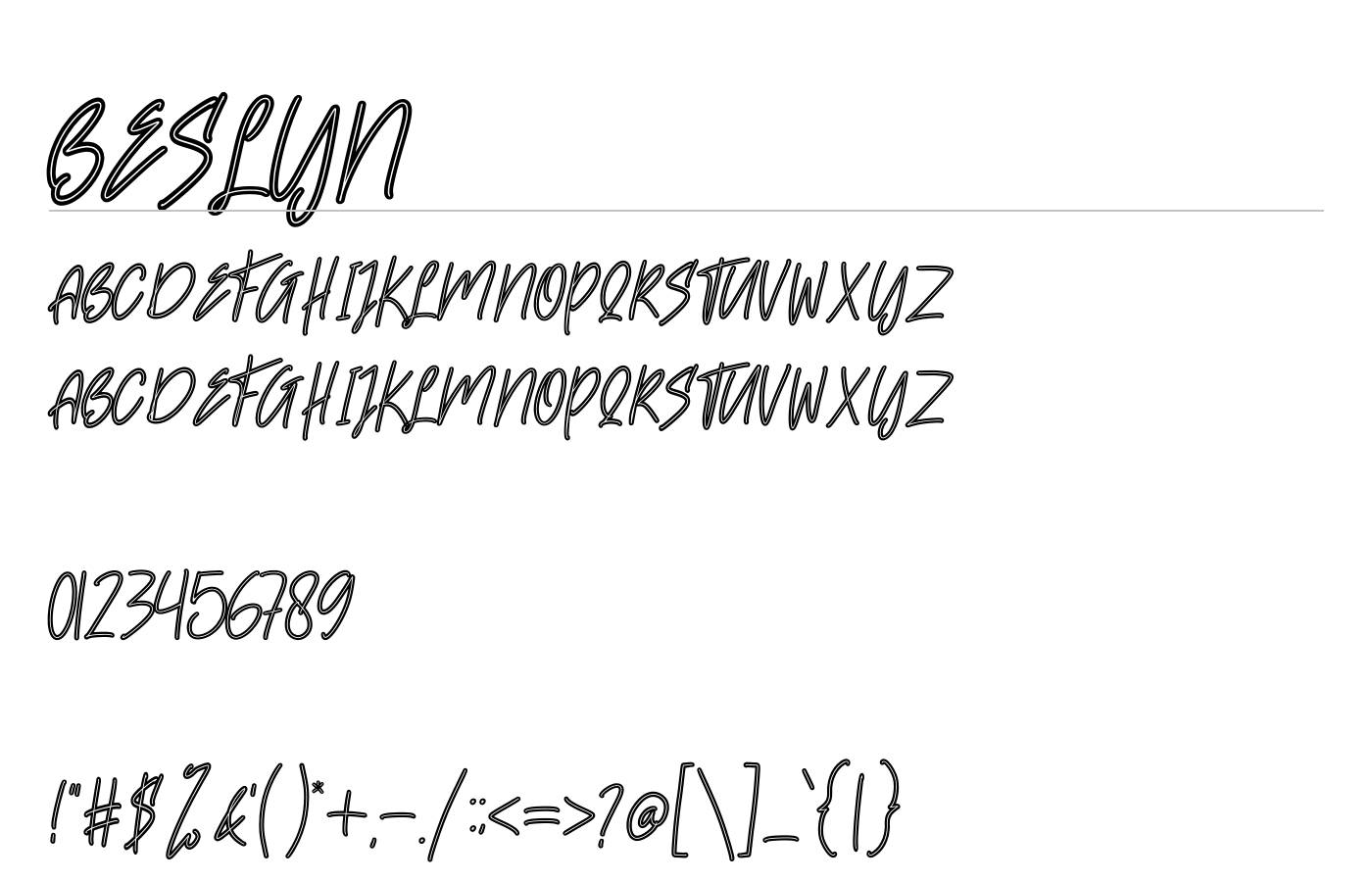
Beslyn is a playful, casual script font characterized by its narrow, hand-drawn style and energetic, slightly irregular stroke outlines that give it a dynamic and friendly feel. Its tall, condensed letterforms and lively curves make it perfect for creative branding, informal headlines, and designs aiming for a personal, approachable touch. This font works well in contexts where a fun, youthful vibe is desired, such as social media graphics, packaging, or lifestyle-oriented projects.
Beslyn Font
About Beslyn Font